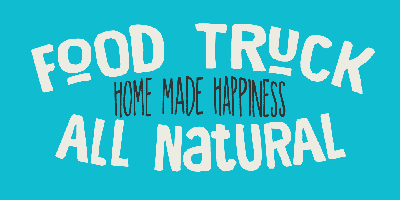
If you’re in search of a playful and dynamic typeface that brings energy to your designs, the Mango Swifter Font Free Download is an excellent choice. With its lively curves, handwritten feel, and bold personality, Mango Swifter Font is perfect for branding, product packaging, social media graphics, invitations, and creative advertising campaigns. It adds a fresh and youthful spirit to any project.
Mango Swifter Font masterfully blends casual charm with professional design. Its organic strokes and stylish letterforms ensure that your text stands out while remaining easy to read. Whether you’re aiming for a fun, approachable look or a trendy, hand-crafted vibe, this font provides the versatility needed to bring your creative vision to life.